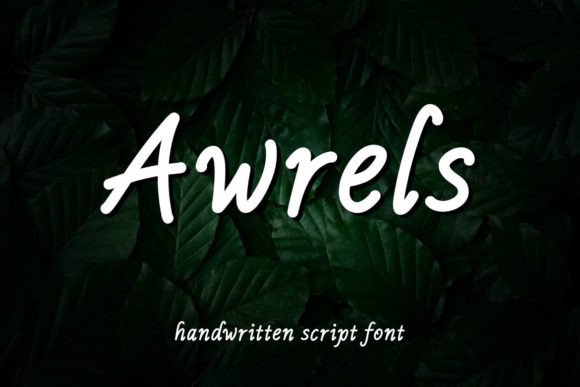
Dive into the world of Awrels Font, a captivating script font that will transform your designs into works of art. Designed by the talented Mightyfire, Awrels is a symphony of elegant curves and whimsical strokes, perfect for adding a touch of charm and personality to your projects.
Awrels is not just a font; it's an experience, a journey into the realm of creativity. With its graceful lines and expressive characters, Awrels breathes life into your words, capturing the essence of your message and delivering it with style. Let Awrels be your storyteller, guiding your readers through a captivating narrative or conveying your brand's unique identity with flair.
Whether you're crafting a timeless storybook, creating a captivating comic book, designing eye-catching school projects, or simply adding a touch of elegance to your flyers and book titles, Awrels is your perfect companion. Its versatility knows no bounds, extending to advertisements, social media content, logo designs, and countless other creative endeavors.
Awrels is more than just a collection of letters; it's a key that unlocks the door to your imagination. Let your creativity soar as you explore the endless possibilities Awrels offers. Transform ordinary designs into extraordinary expressions, leaving a lasting impression on whoever encounters your work.
Don't settle for ordinary fonts that blend into the background. Choose Awrels, the font that dances across the page, captivating attention and sparking conversations. Let Awrels be the star of your designs, showcasing your impeccable taste and creative flair.
With its user-friendly format, Awrels is accessible to everyone, from seasoned designers to aspiring artists. Unleash your inner artist and let Awrels guide you towards creating designs that resonate with your audience and leave a lasting impact.
Awrels is not just a font; it's an invitation to embark on a creative journey, a journey where your imagination reigns supreme and your designs come alive. Embrace Awrels and elevate your designs to new heights.